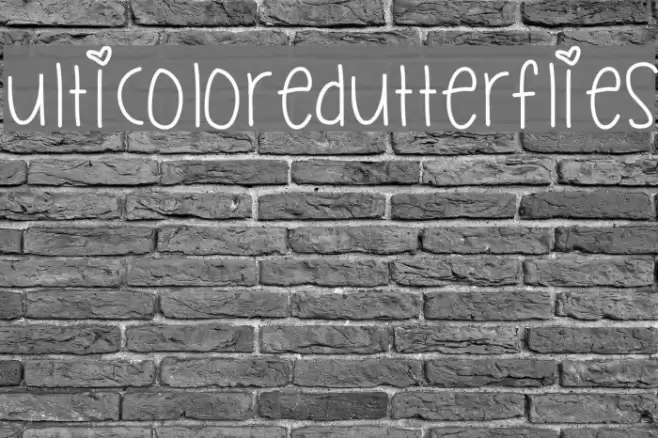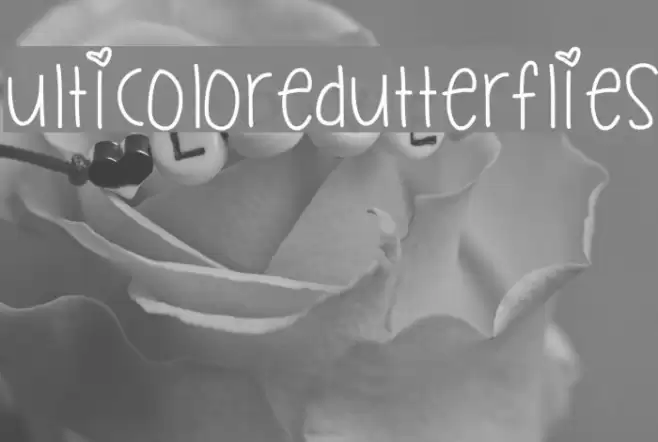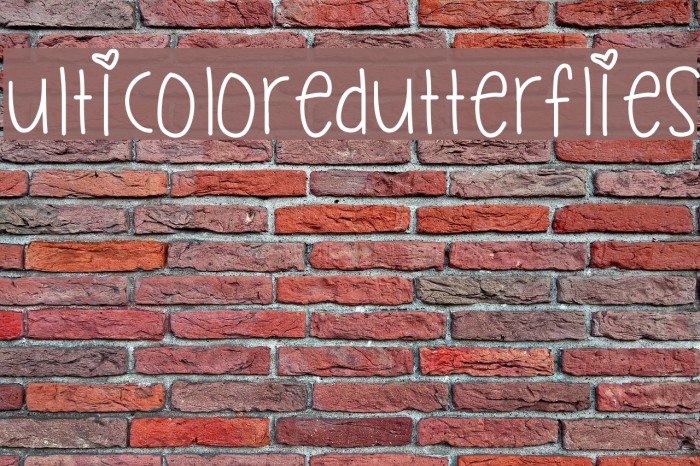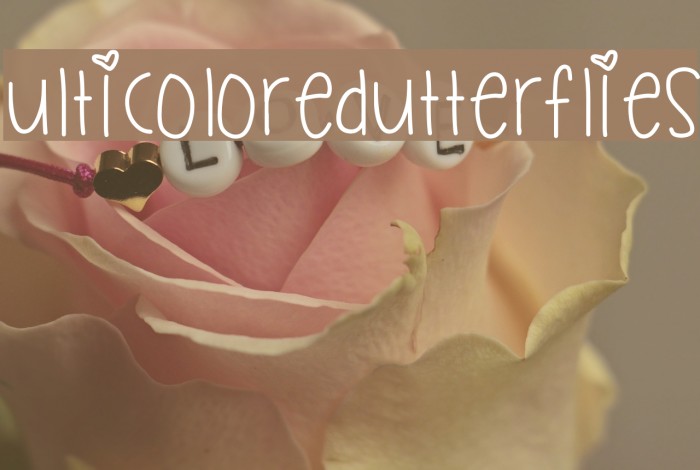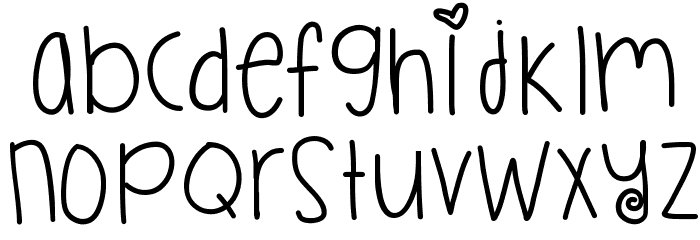
MulticoloredButterflies Font
MulticoloredButterflies Description
This playful and whimsical font features a handwritten style with a charming and casual appearance. The letters are slightly irregular, adding a personal touch that feels friendly and approachable. The lowercase 'g' and 'j' have unique loops, while the 'i' is adorned with a heart-shaped dot, enhancing its playful nature. The uppercase letters maintain a consistent height, contributing to a cohesive look. This font is perfect for projects that require a fun and informal vibe, such as children's books, greeting cards, or playful branding. Its simplicity and charm make it versatile for various creative applications.
A playful, handwritten font with whimsical, irregular characters from Uncategorized fonts.
- Proposed Projects: Ideal for children's books, greeting cards, playful branding, and creative projects.
- Overall Style: Playful
- Use Case: Greeting cards, Children's books, Playful branding